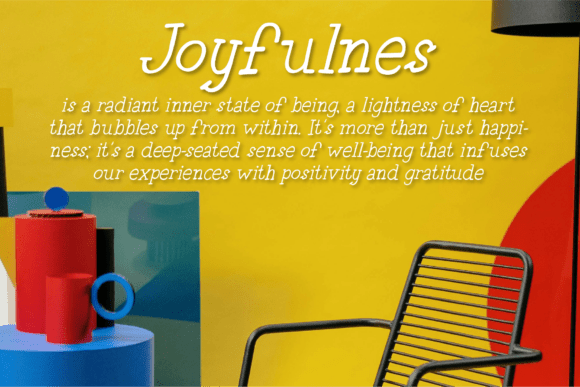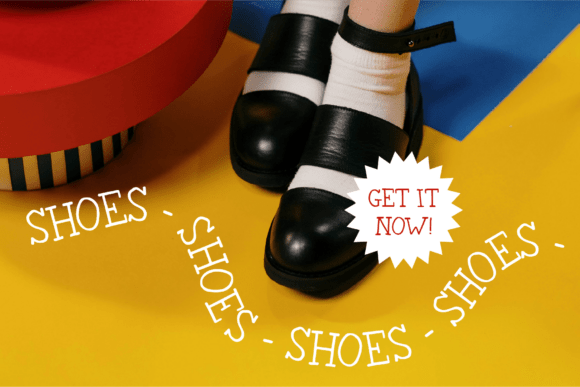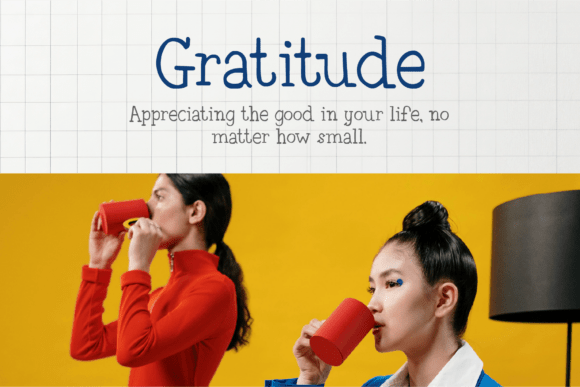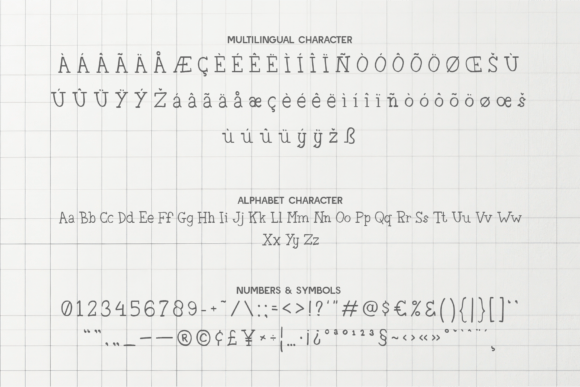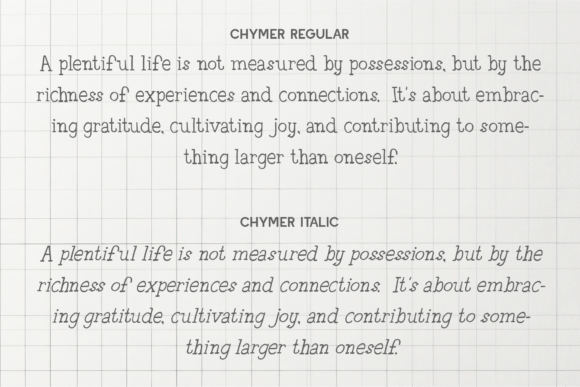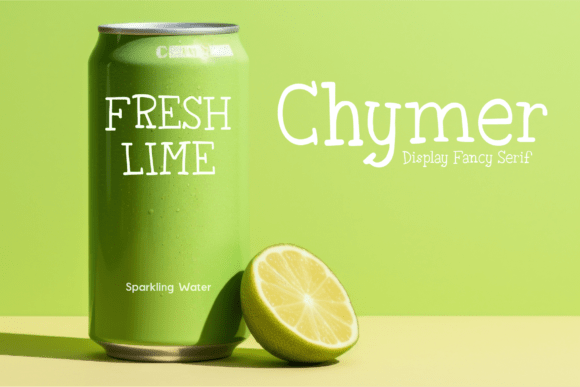
Introduction to Chymer Font
Do you remember the moment when a single font choice completely transformed your design project? For many of us, it’s a moment of pure excitement and joy. As designers, we’re constantly on the lookout for that perfect font to elevate our work and make it stand out. Enter the Chymer Font, a display fancy serif font that’s sure to capture your attention and inspire your creativity.
With its unique blend of playful curves and bold presence, the Chymer Font is a game-changer for designers seeking to add a touch of whimsy to their high-quality designs. Whether you’re working on a creative project with a transparent background or a modern advertising campaign, this font is sure to bring a fresh twist to your typography.
Key Features of Chymer Font
- High-quality design for creative projects, ideal for digital art, graphics, and web design.
- Transparent background, allowing for seamless integration with any design element or image.
- High-resolution design, perfect for printing or displaying on high-resolution screens.
- Unique, hand-drawn style that adds a touch of personality to any creative project.
Honest Review: Chymer Font
I recently had the chance to experiment with the Chymer Font, and I must say it’s been a great addition to my design resource library. The Chymer Font is a beautiful, high-quality typeface that’s perfect for creative projects where you need a unique and eye-catching font.
What works well is the font’s versatility. It’s available as a free download, making it an excellent choice for designers on a budget. The Chymer Font also features a transparent background, which is a nice touch for designers who want to create seamless and professional-looking designs.
- ✨ High-quality design: The Chymer Font has a clean and modern aesthetic that’s perfect for a wide range of creative projects.
- ✨ Great for creative projects: The Chymer Font is perfect for designers who want to add a touch of personality to their work.
⚠️ One limitation of the Chymer Font is its limited language support. This might be a concern for designers who need to create content in multiple languages.
Overall, I’m impressed with the Chymer Font. It’s a high-quality design resource that’s perfect for designers who want to add a touch of creativity to their work. If you’re looking for a unique and eye-catching font, I highly recommend giving the Chymer Font a try.
Tips for Getting the Most Out of Chymer Font
Experiment with different font sizes, colors, and combinations to achieve a unique look. Use the font with other design elements, such as graphics or shapes, to create a visually appealing design. Consider using the font with a transparent background to add depth and interest to your design.
Chymer Font is suitable for a variety of creative projects, including business cards, brochures, social media graphics, and presentations. It’s also a great choice for designing logos, icons, and other visual elements. With its high-quality design and free download, Chymer Font is a valuable resource for designers and creatives alike.
Is the Chymer Font suitable for high-resolution printing?
Yes, the Chymer Font is designed to be highly legible at various resolutions, making it suitable for high-resolution printing. The font’s high quality ensures that it will display clearly and consistently, even when scaled up to large sizes. This makes it an excellent choice for designers working on large-format prints or signage projects.